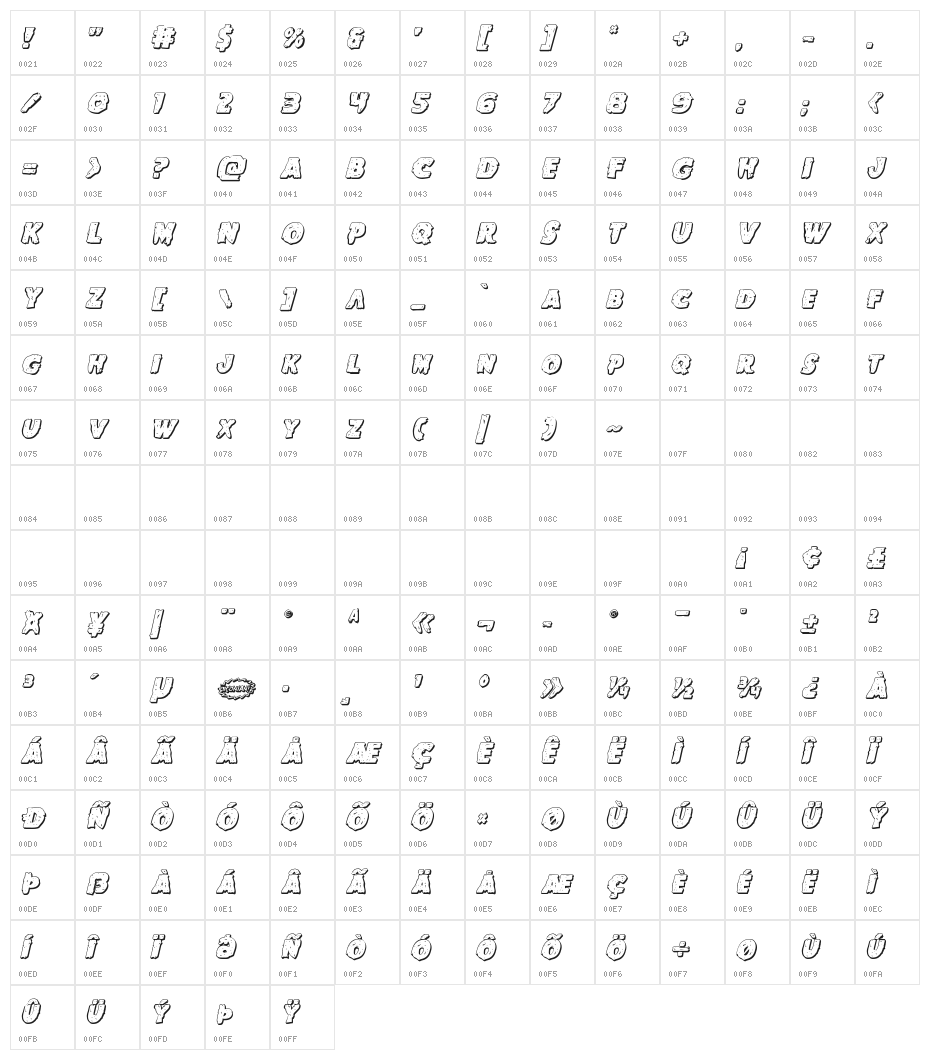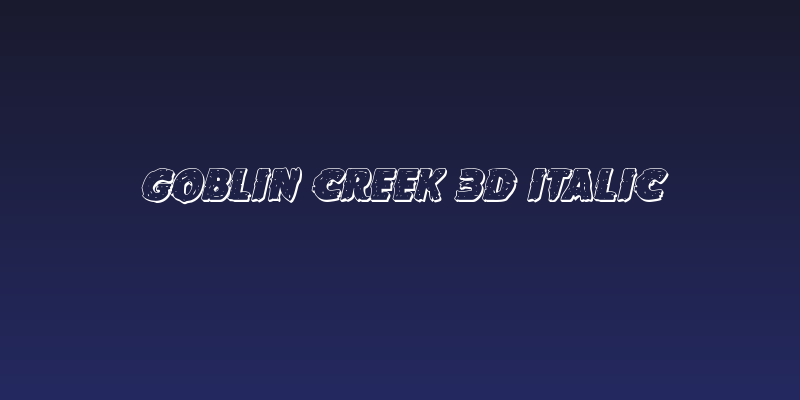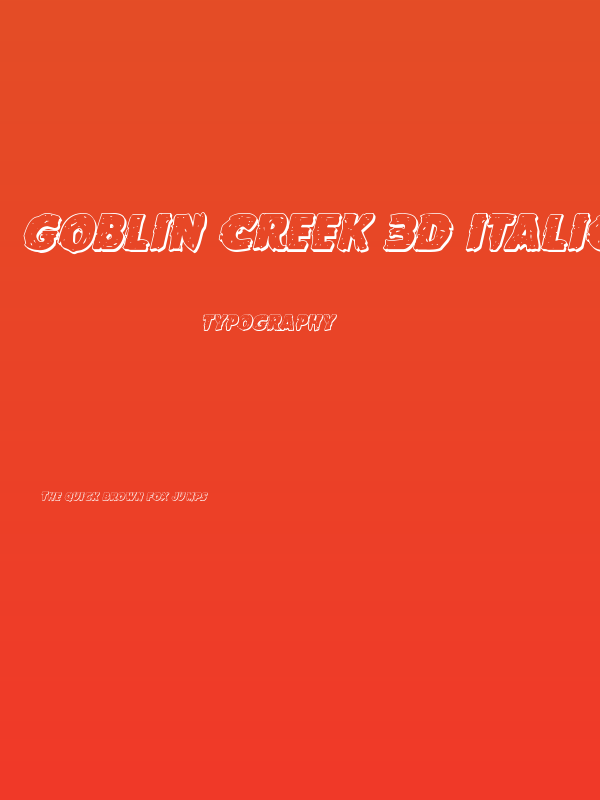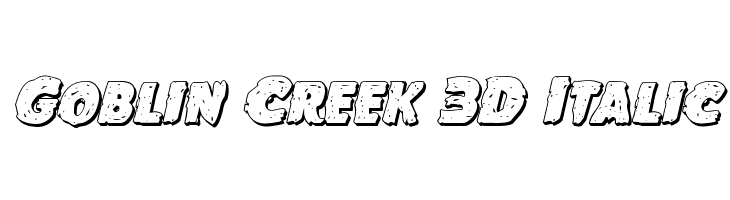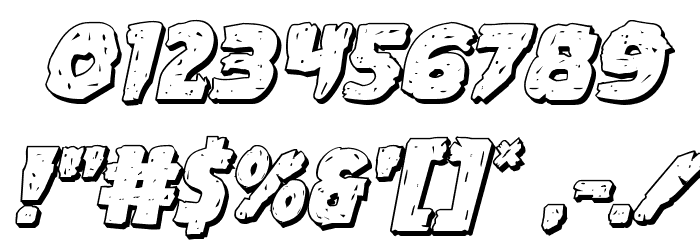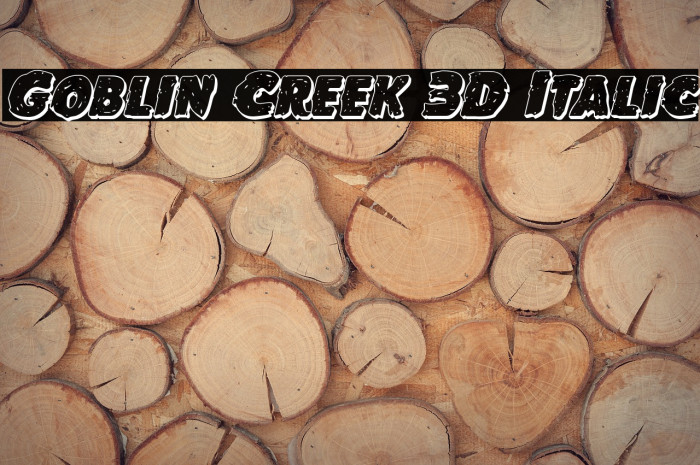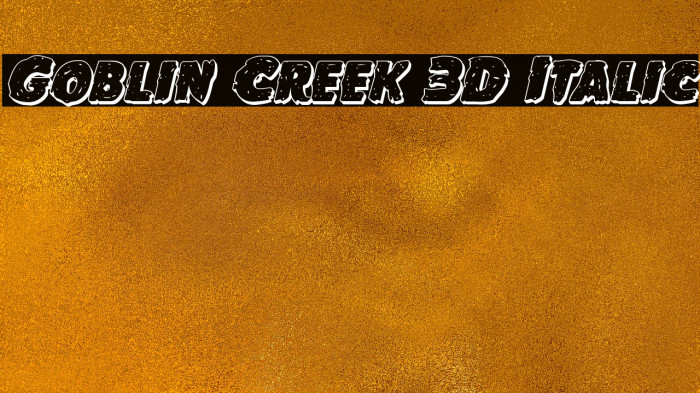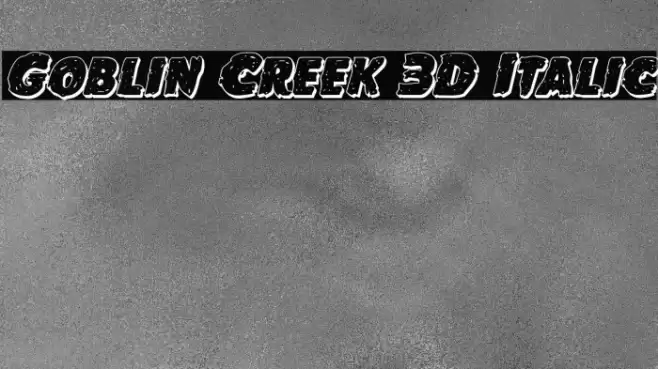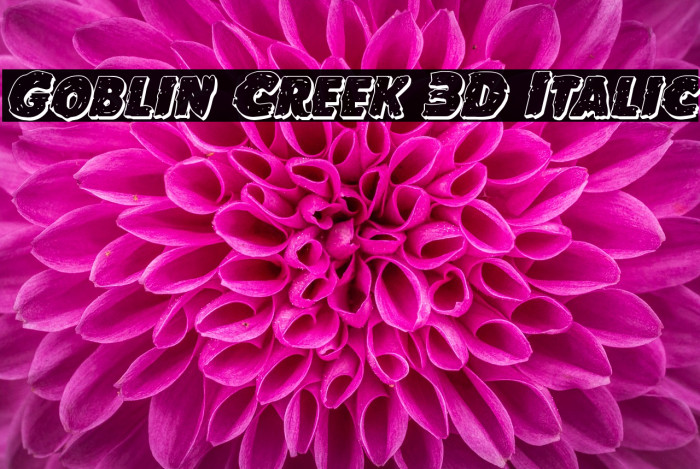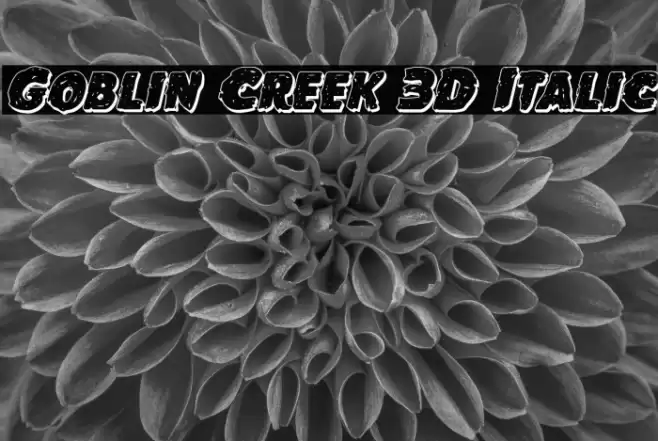
Goblin Creek 3D Italic Font
Goblin Creek 3D Italic Description
This font features a bold, playful 3D effect with a distinct italic slant, giving it a dynamic and energetic appearance. The characters are outlined with a shadow that enhances the three-dimensional look, making them pop off the page. The font has a cartoonish, hand-drawn style with irregular edges, adding to its whimsical and fun nature. It's highly decorative, with each letter appearing as if it has been carved out of a solid block, creating a sense of depth and movement. The font's unique style is perfect for projects that require a lively and engaging visual impact.